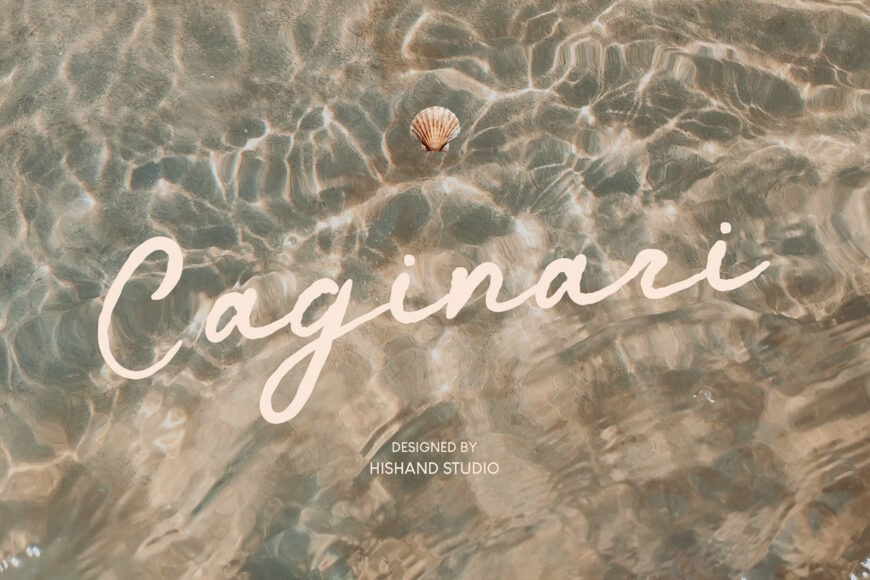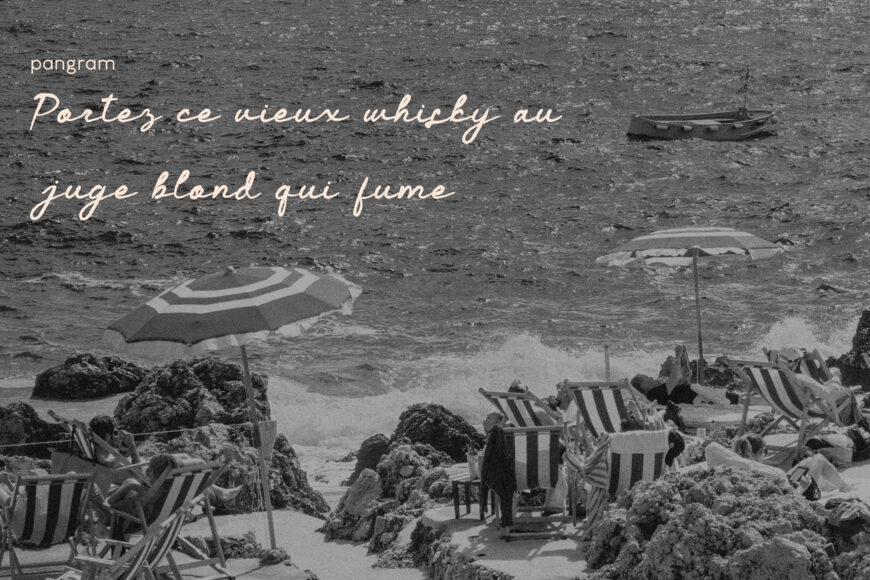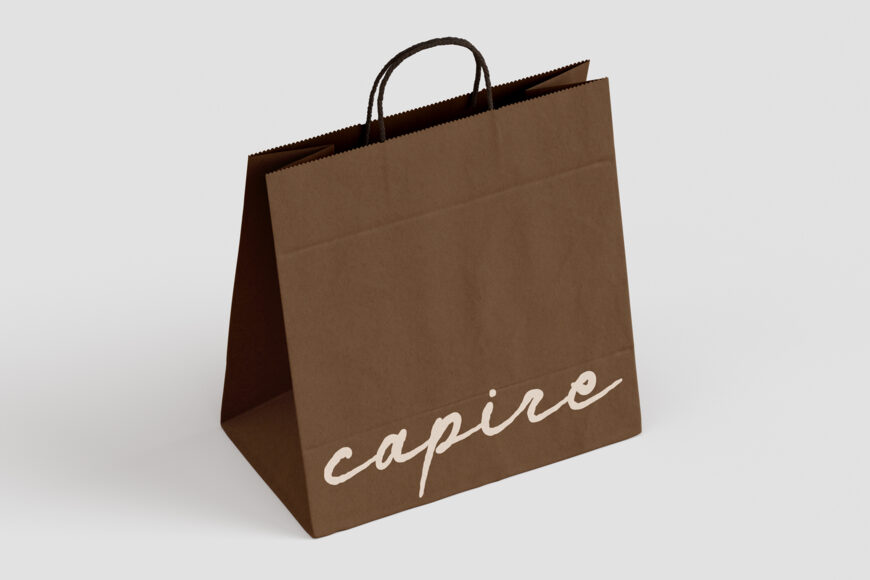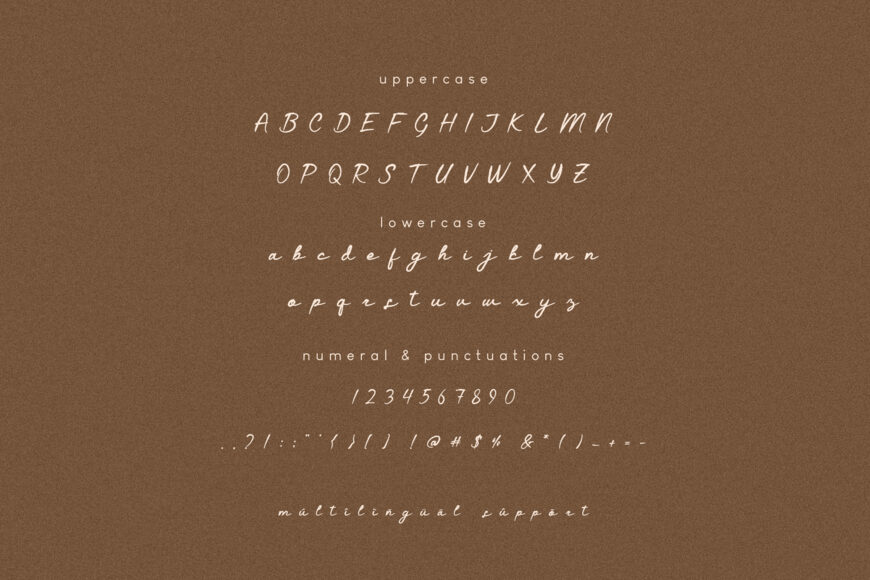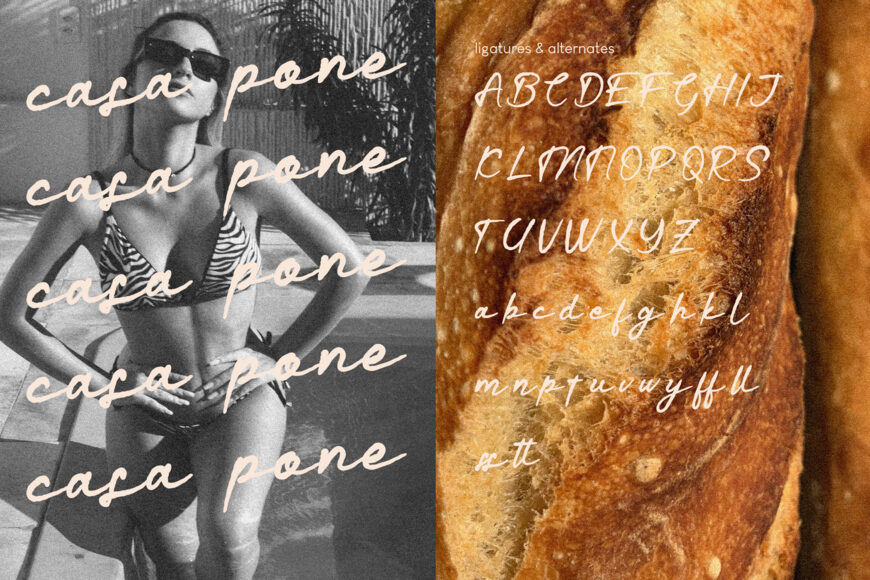
Caginari Font
Caginari is a flowing script font that captures the ease and warmth of a slow coastal morning. Its long, connected strokes move with a natural rhythm, swinging low into wide loops before rising again, giving every word a relaxed, handwritten feel. The letterforms are casual but confident, striking a balance between elegance and approachability that makes them equally at home on a wedding invitation or a beachside brand.
Inspired by the quiet movement of water and sand, Caginari Script Font carries a gentle, unhurried energy in every curve. From boutique hotels to skincare labels to personal branding projects, Caginari brings a soft, breezy character that feels both personal and polished.